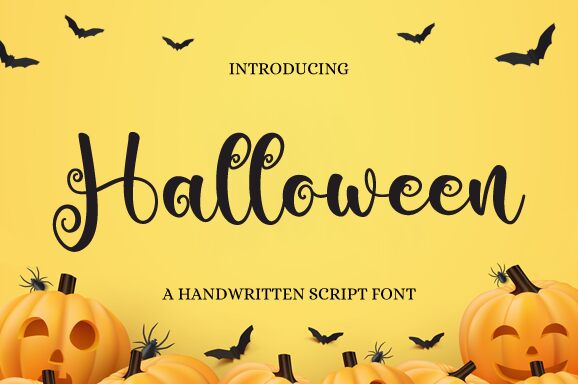
Halloween, designed by Nirmala Creative, is a font that encapsulates the eerie yet playful spirit of its namesake holiday. The typeface exhibits a whimsical charm with its curly cues and semi-light weight, conjuring images of ghostly whispers and spirited enchantments. Its aesthetic appeal lies in the delicate balance between spookiness and elegance, making it an ideal choice for a wide array of creative endeavors.
From themed party invitations to festive marketing materials, Halloween's style is versatile enough to embellish any project needing a touch of the supernatural. Its unique characteristics allow for expressive typography that can both chill and delight an audience. With Halloween font, designers are equipped to craft visuals that are as hauntingly beautiful as they are engaging.